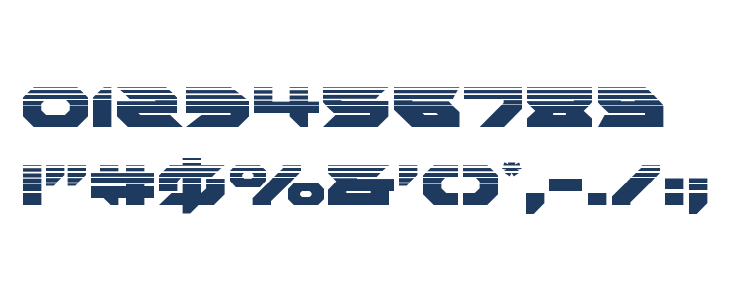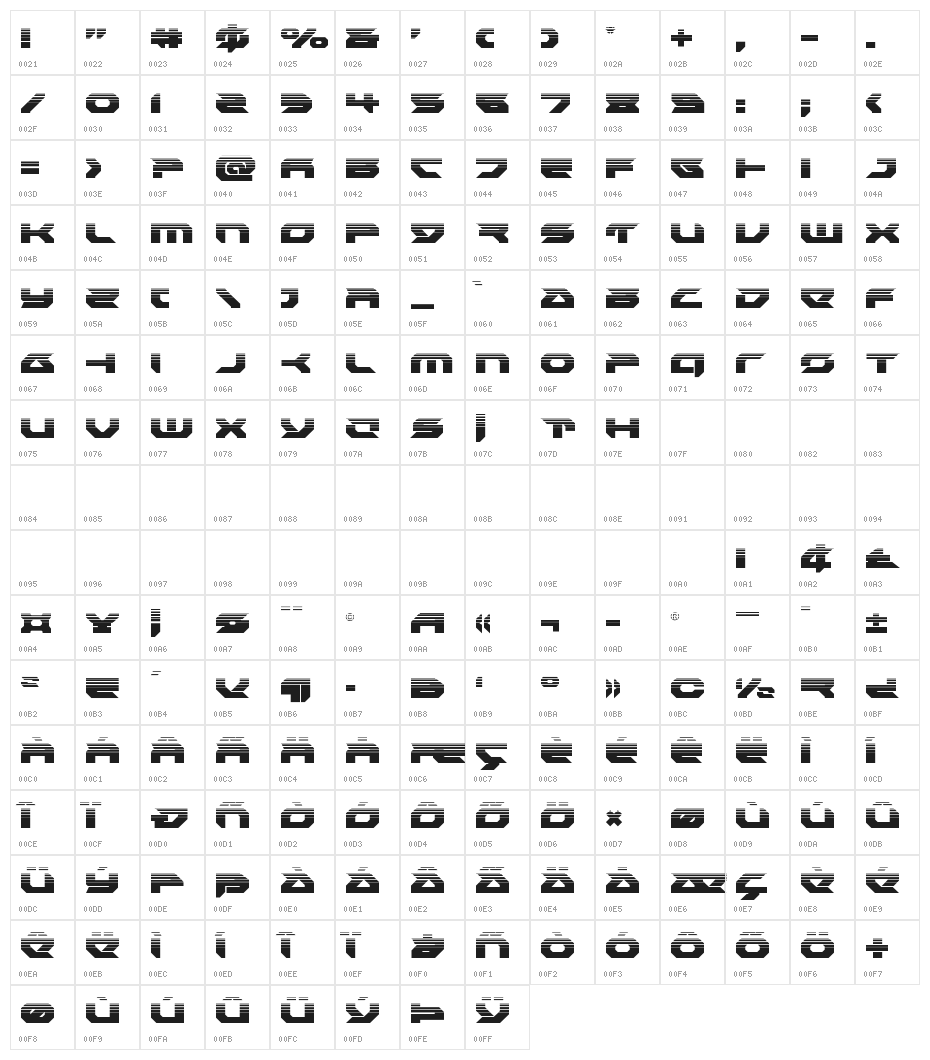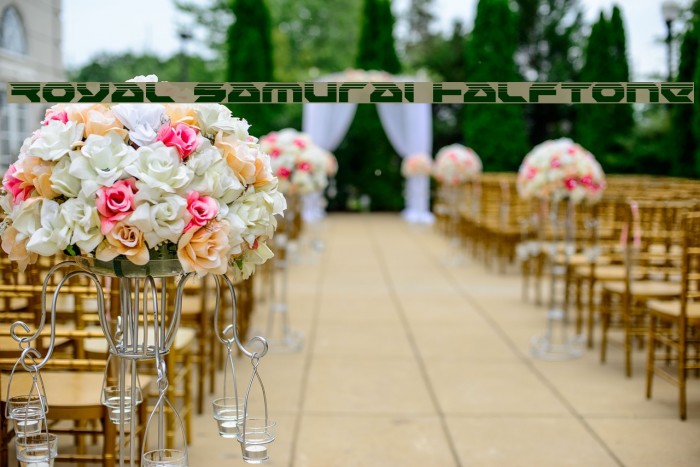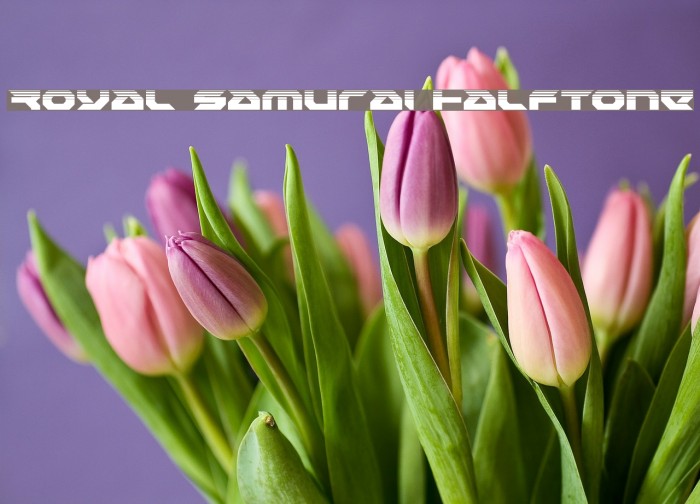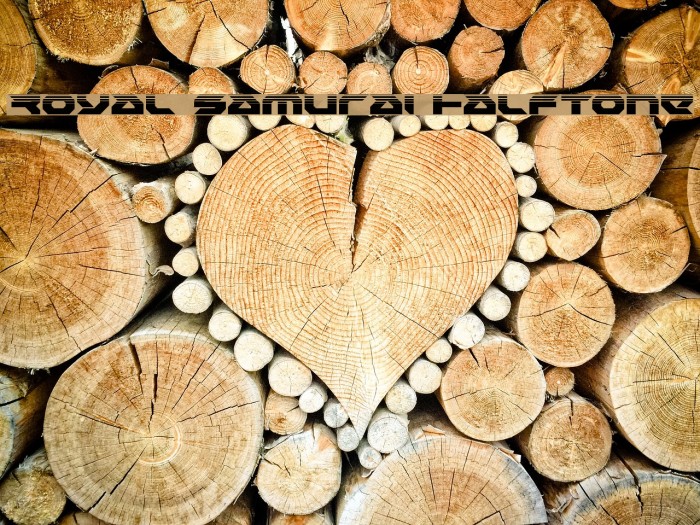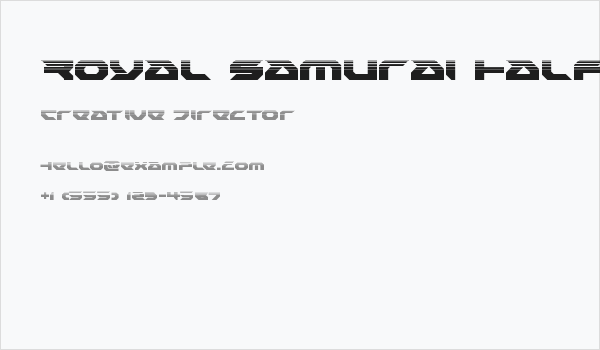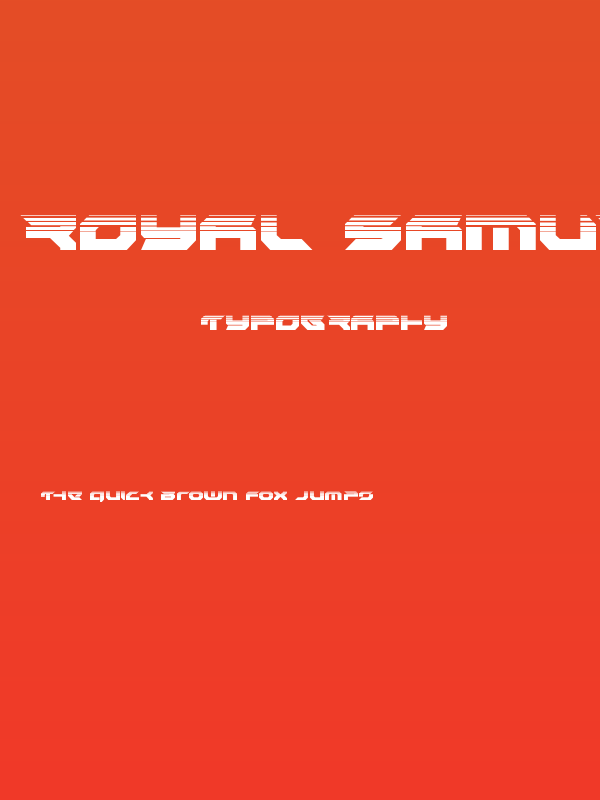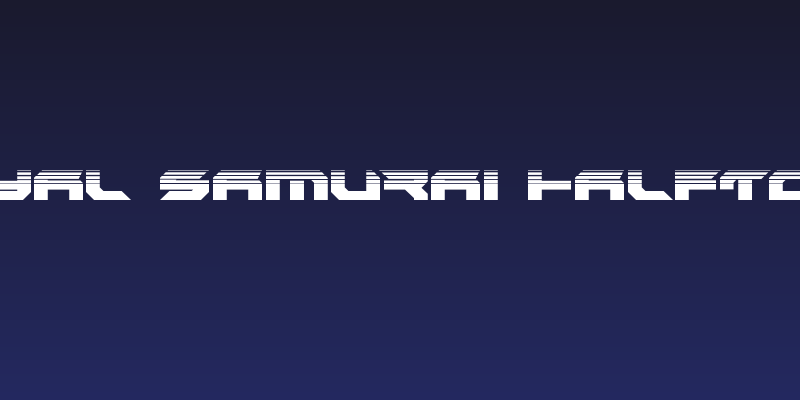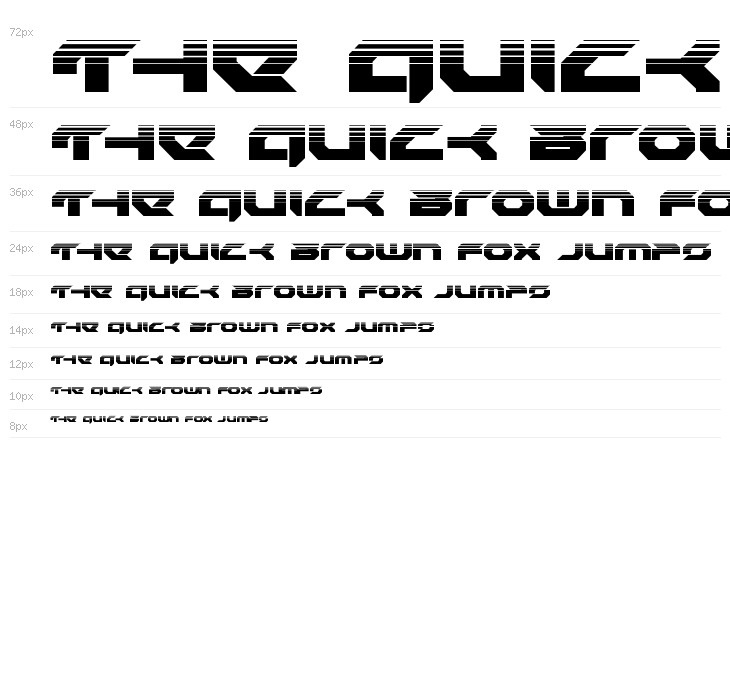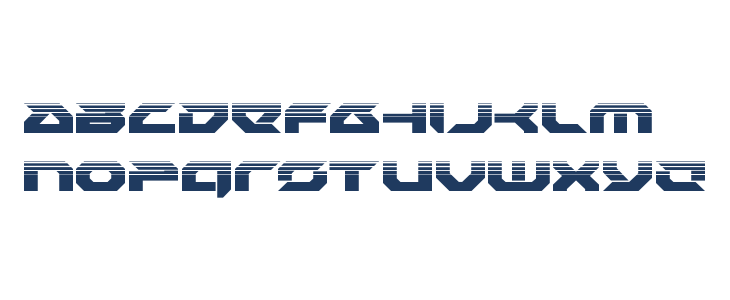
Royal Samurai Halftone Font
Royal Samurai Halftone Description
This font features a bold, futuristic design with a strong geometric influence. The characters are constructed with thick, angular lines and a unique halftone effect that gives them a dynamic, layered appearance. The uppercase and lowercase letters maintain a consistent style, emphasizing sharp edges and a sense of movement. Numbers and special characters follow the same design principles, ensuring a cohesive look across all elements. The font's distinct style makes it ideal for projects that require a modern, tech-inspired aesthetic.
| Proposed Projects | Ideal for sci-fi themed designs, tech branding, video game titles, and futuristic posters. |